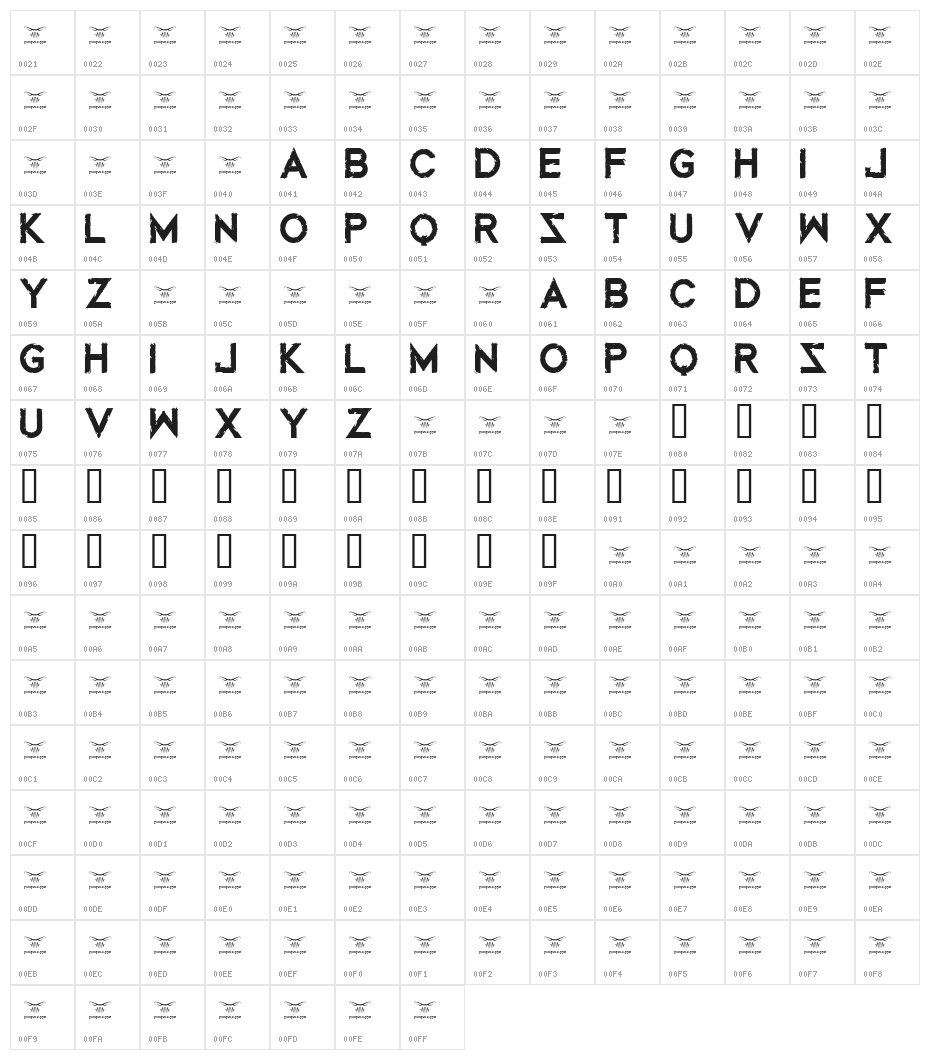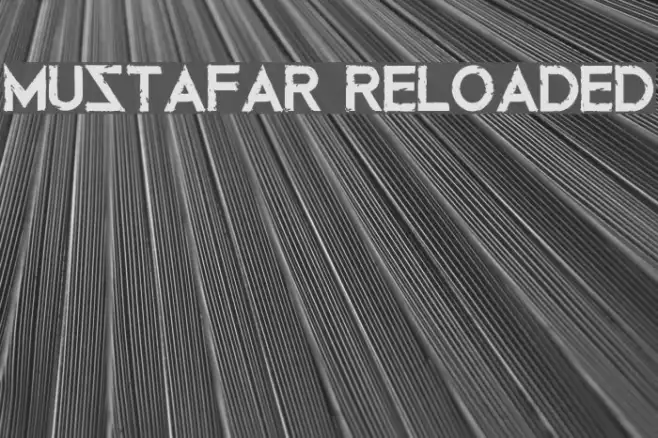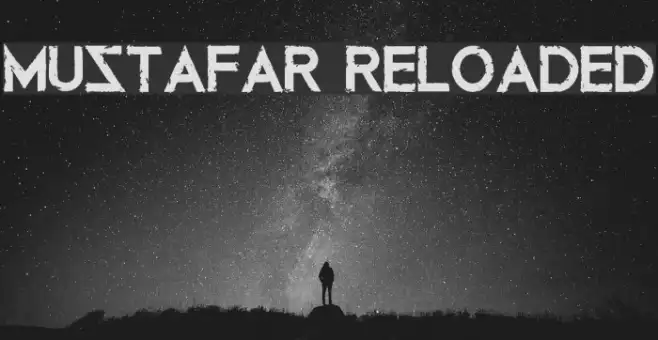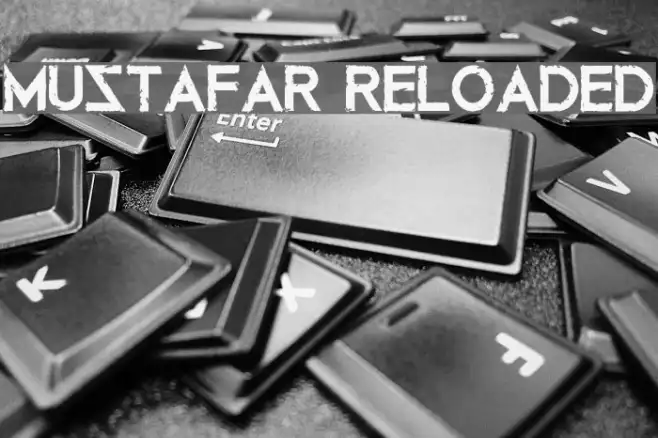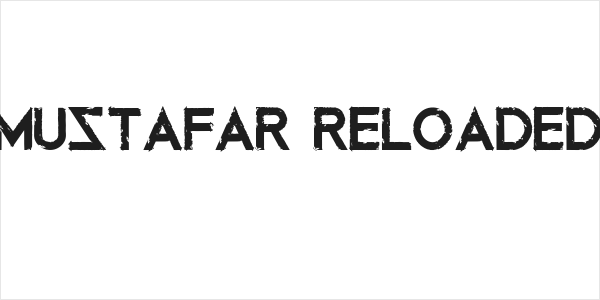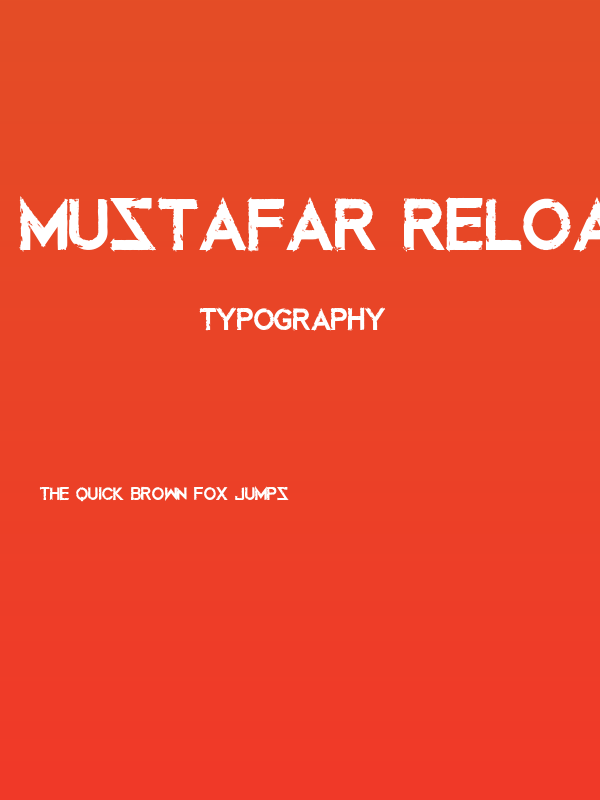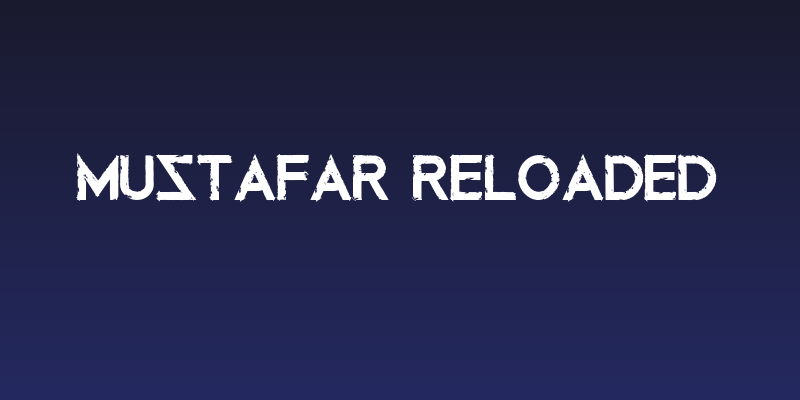
Mustafar Reloaded Font
Mustafar Reloaded Description
This font features a bold and rugged design with a distressed texture that gives it a worn, grunge-like appearance. The characters are angular and sharp, with a geometric influence that adds a modern edge. The uppercase letters are particularly striking, with a consistent height and width that create a uniform look. The font's unique style makes it stand out, offering a sense of rebellion and edginess. It's ideal for projects that require a strong visual impact, such as posters, album covers, or branding for alternative or rock-themed events.
| Overall Style | Modern, Grunge |
| Proposed Projects | Posters, album covers, branding for alternative or rock-themed events. |